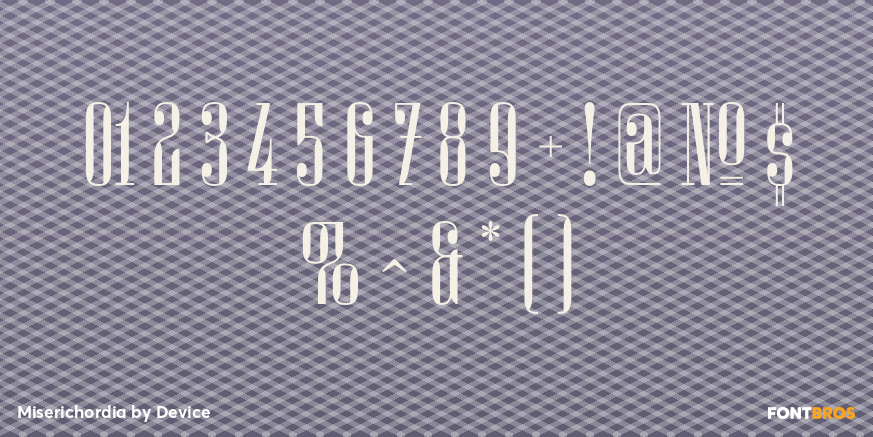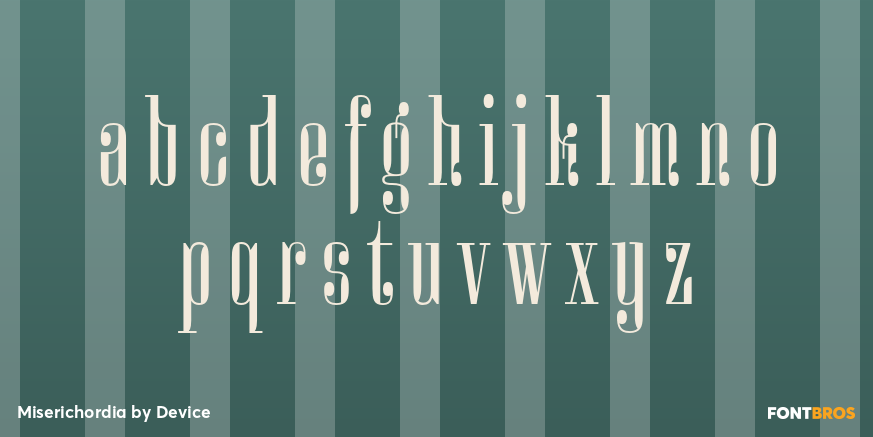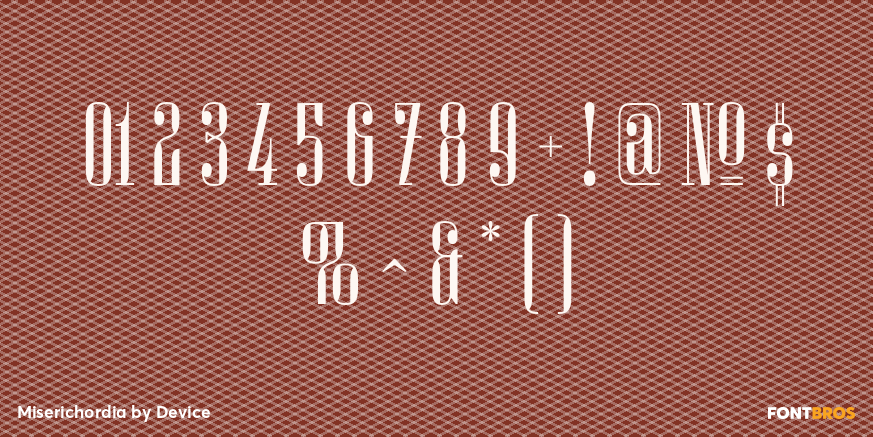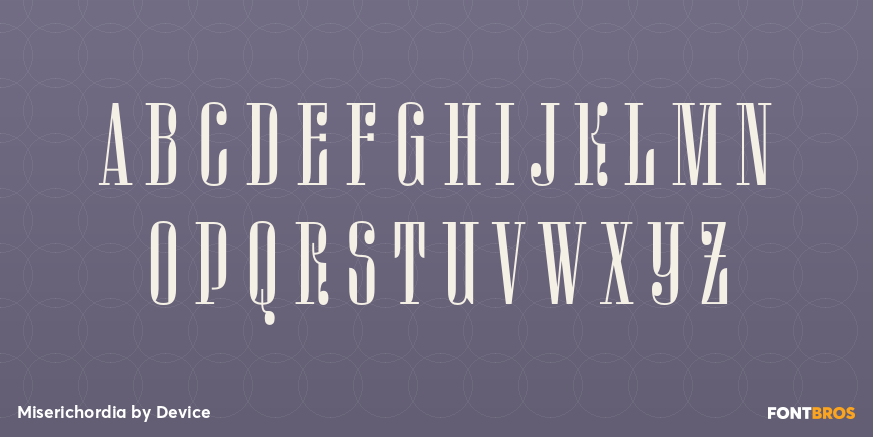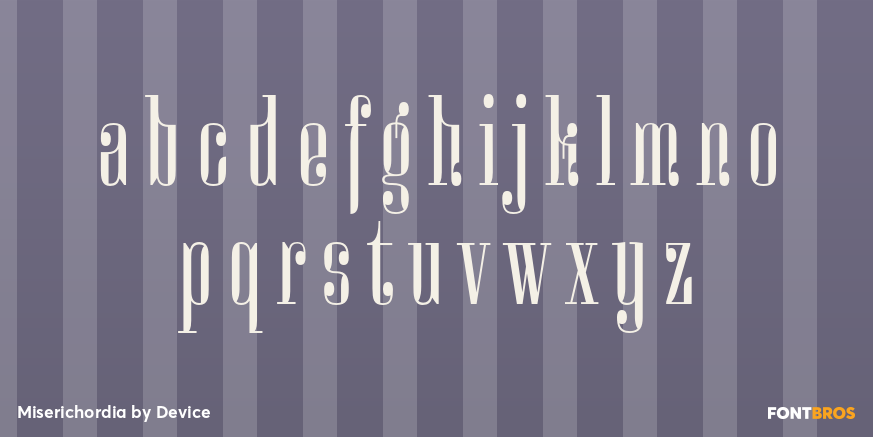
Miserichordia
Font Family by Device
Miserichordia evolved from photographs taken on a trip to Venice and instigated a sharp turn left into more idiosyncratic and decorative serif fonts.
Something of a new direction for Device.
Miserichordia Regular
Miserichordia Alternates